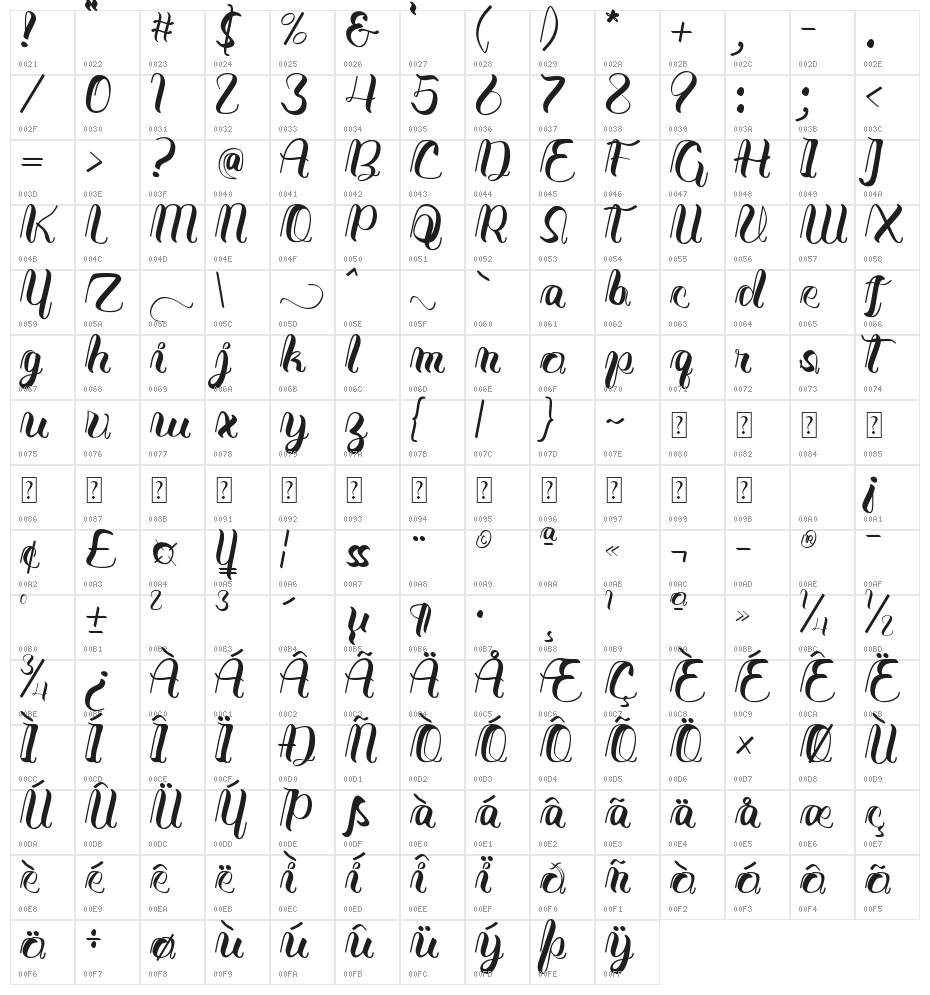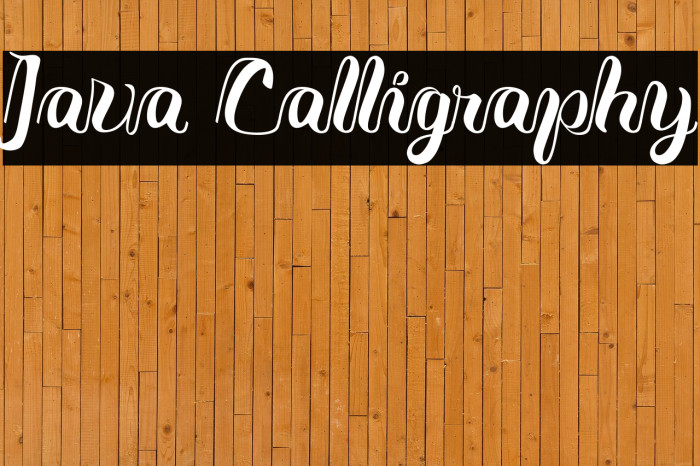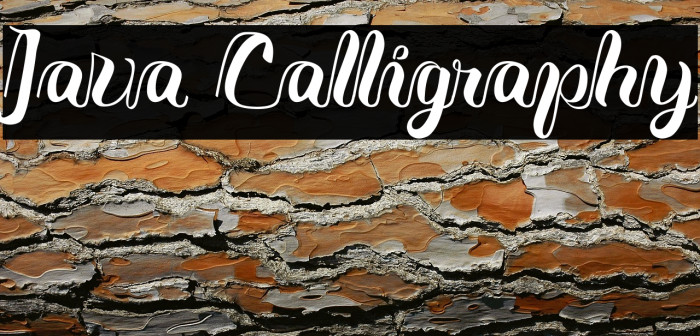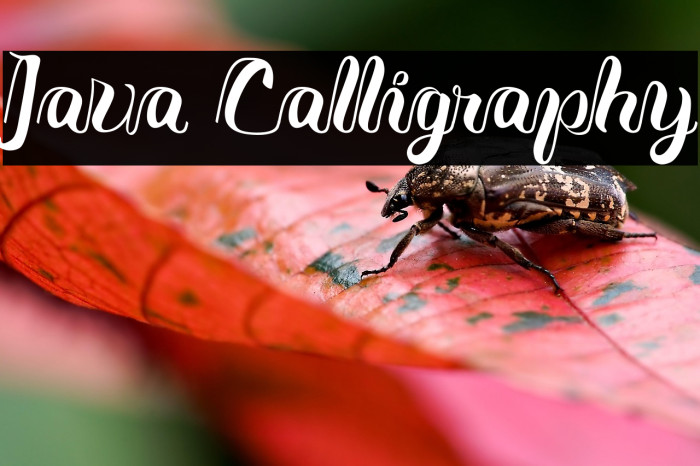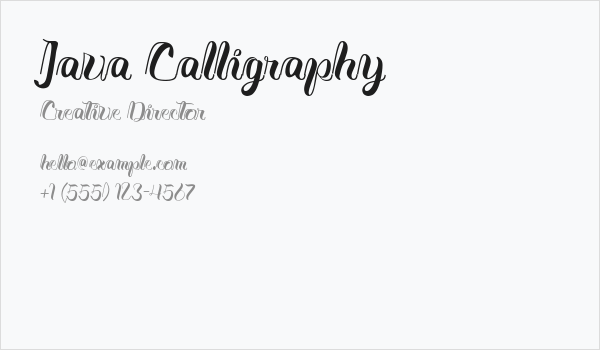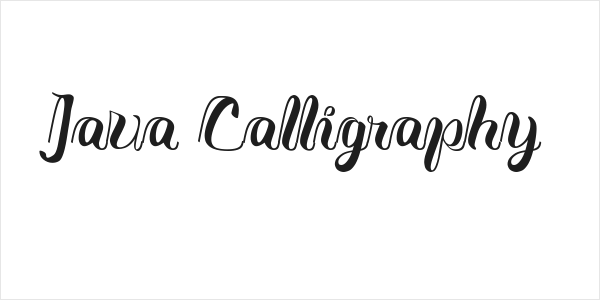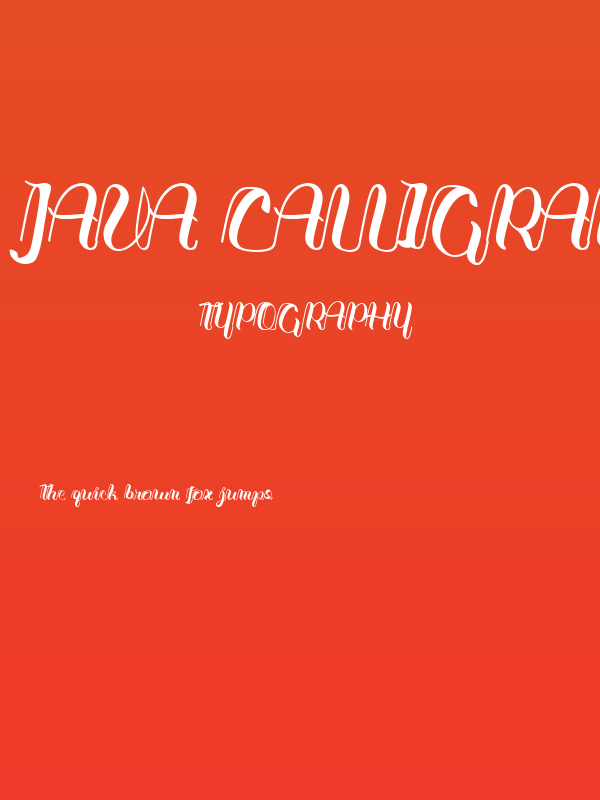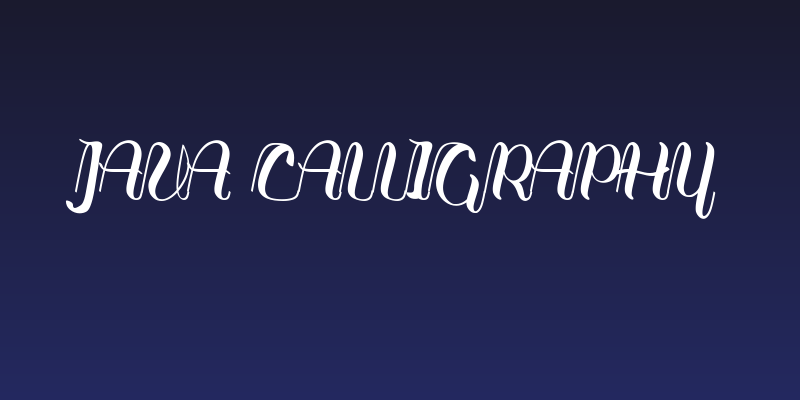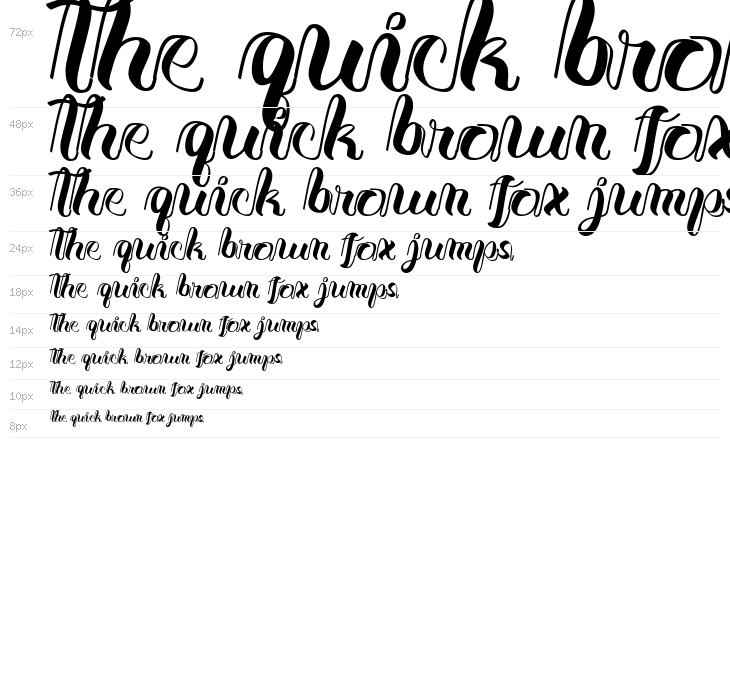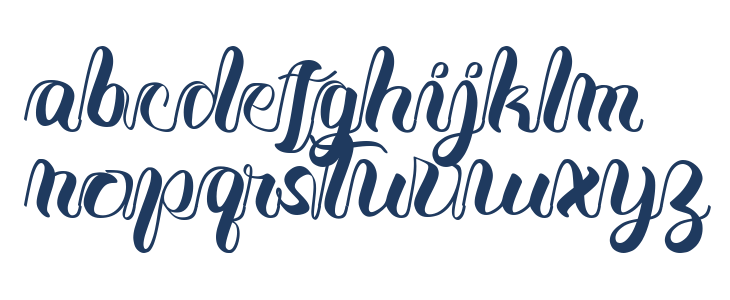
Java Calligraphy Font
Java Calligraphy Description
This elegant script font features a flowing, calligraphic style with smooth, connected strokes that create a sense of movement and grace. The uppercase letters are bold and sweeping, with distinctive loops and flourishes that add a decorative touch. The lowercase letters maintain a consistent rhythm, enhancing readability while preserving the artistic flair. Numbers and special characters are designed with the same fluidity, ensuring a cohesive look across all text elements. The font's overall appearance is sophisticated and stylish, making it ideal for projects that require a touch of elegance and creativity.
| Use Case | Logos, Invitations, Artistic projects |
| Proposed Projects | Ideal for wedding invitations, elegant branding, greeting cards, and artistic posters. |